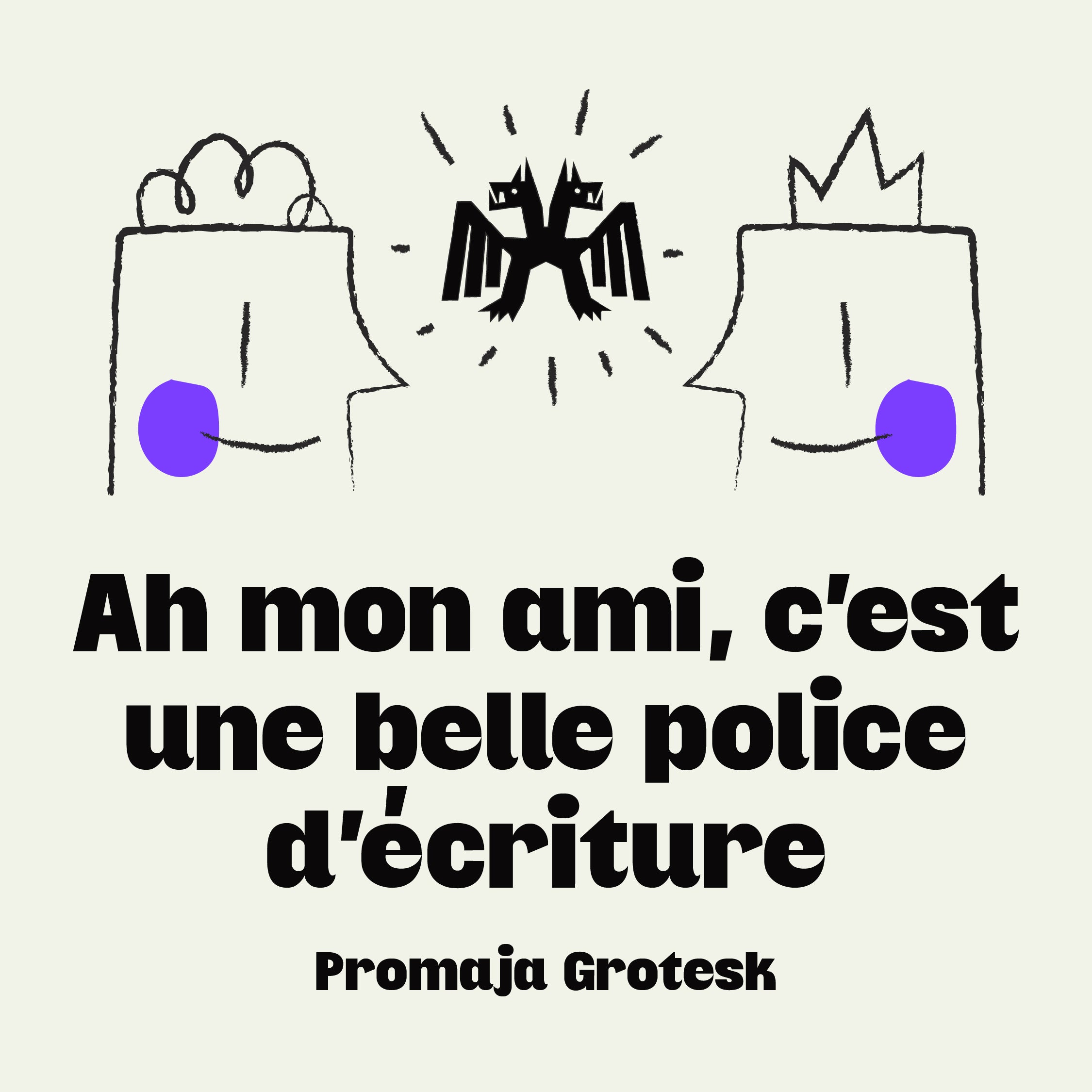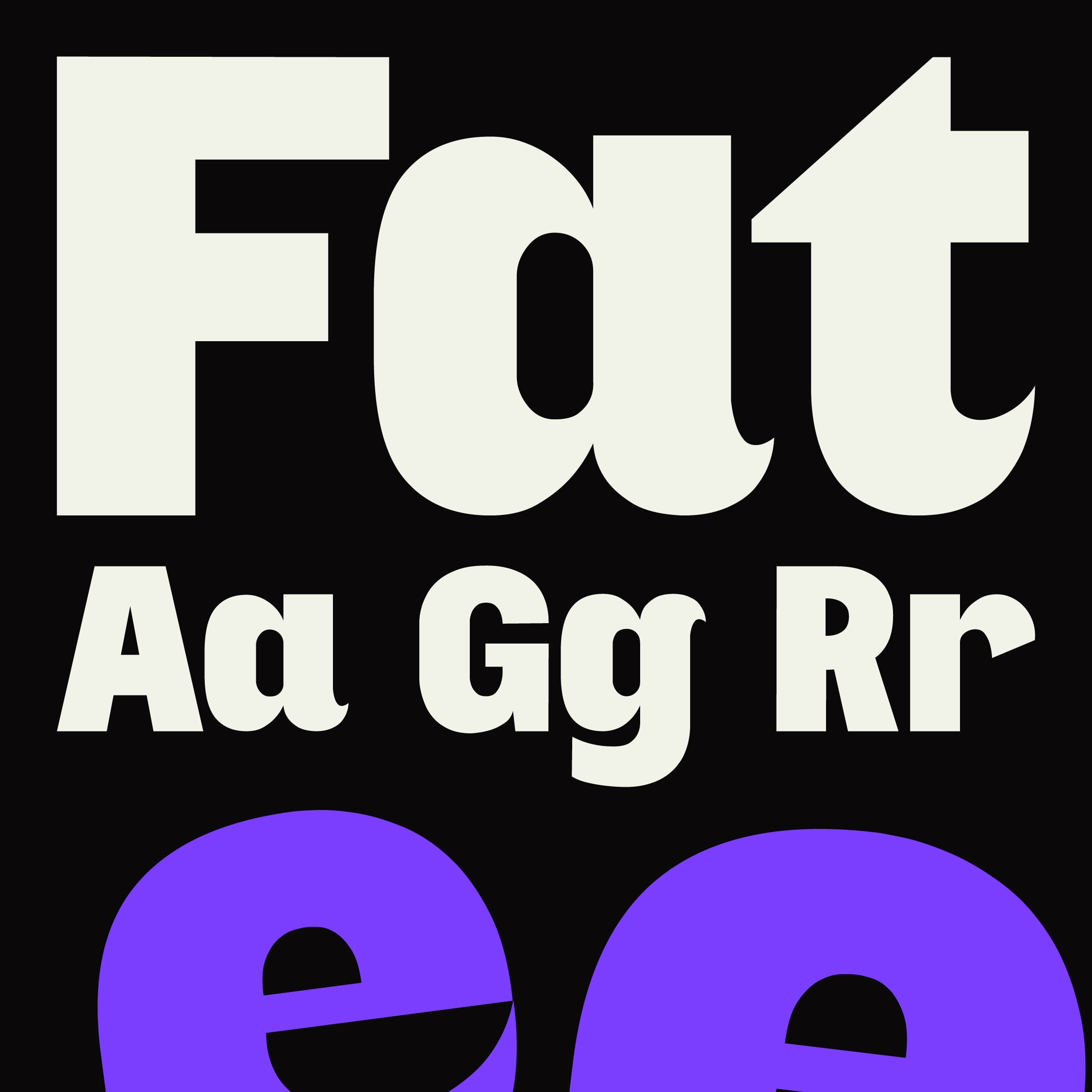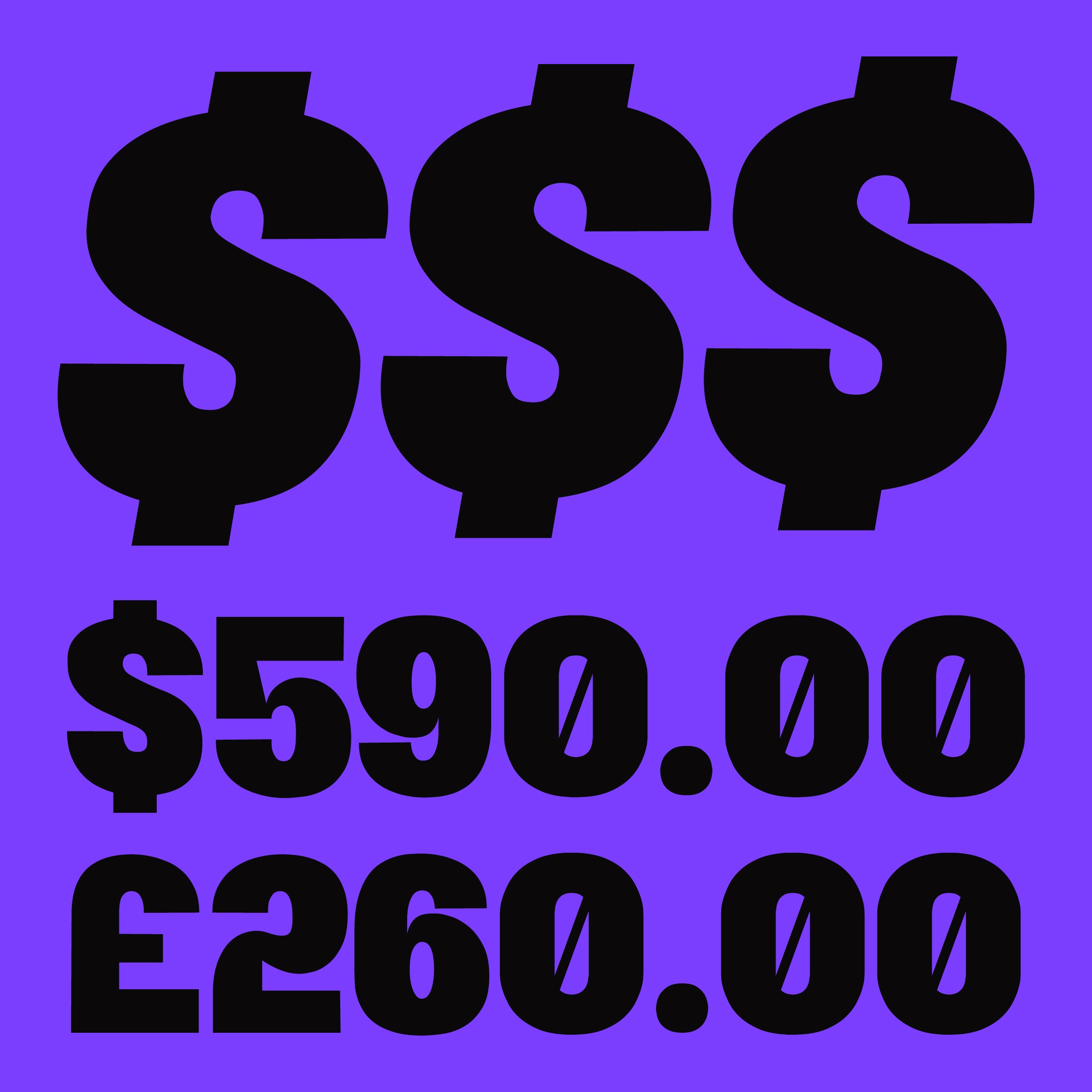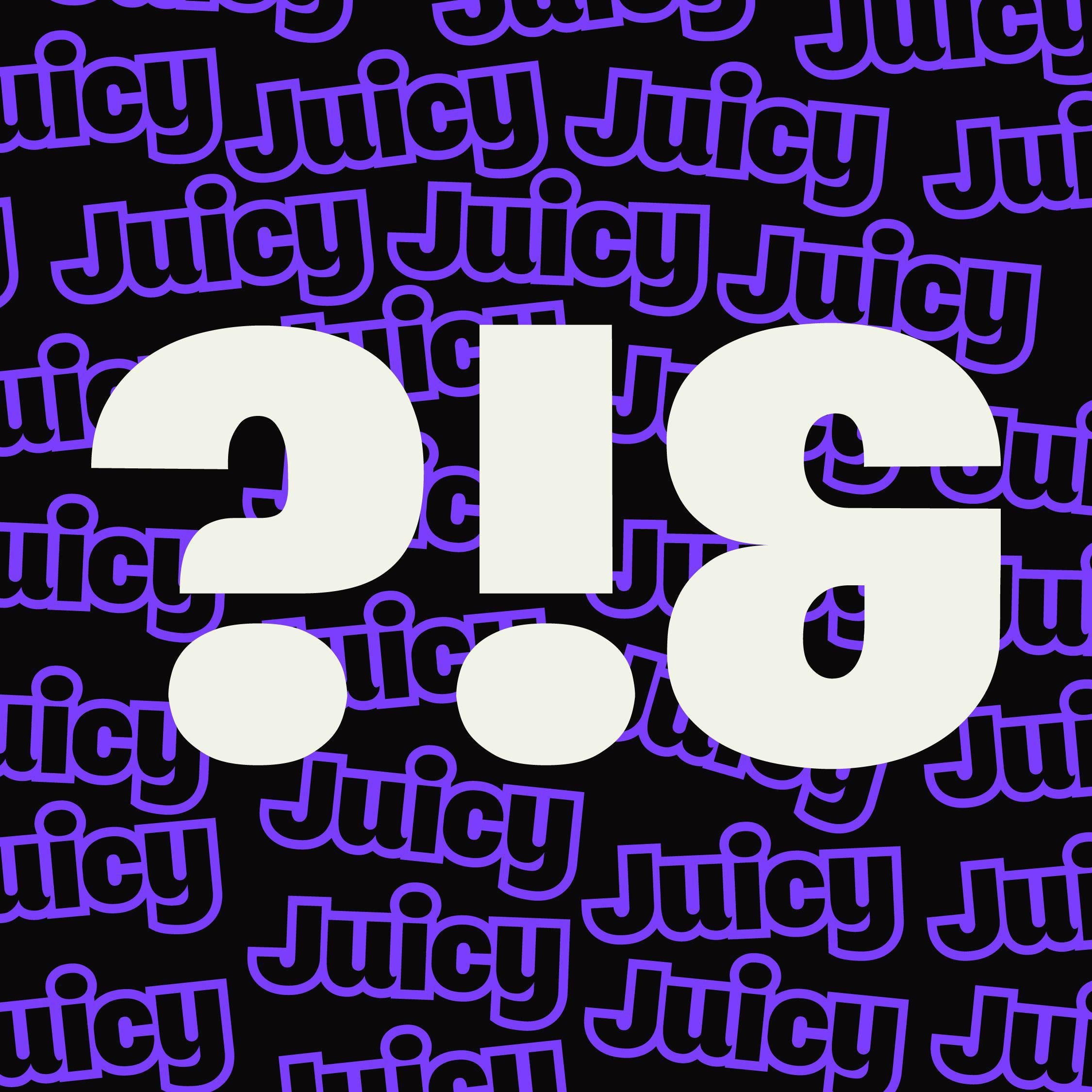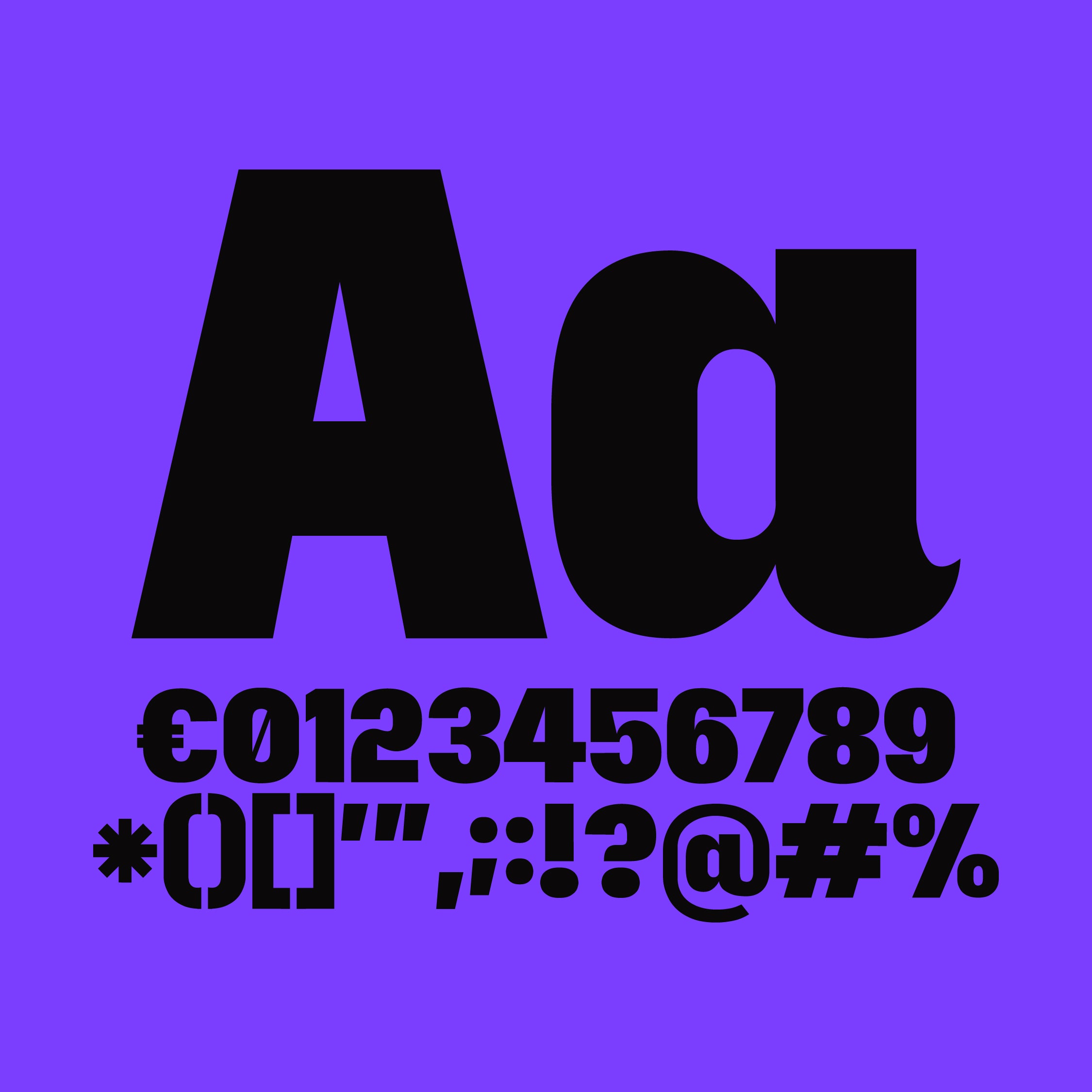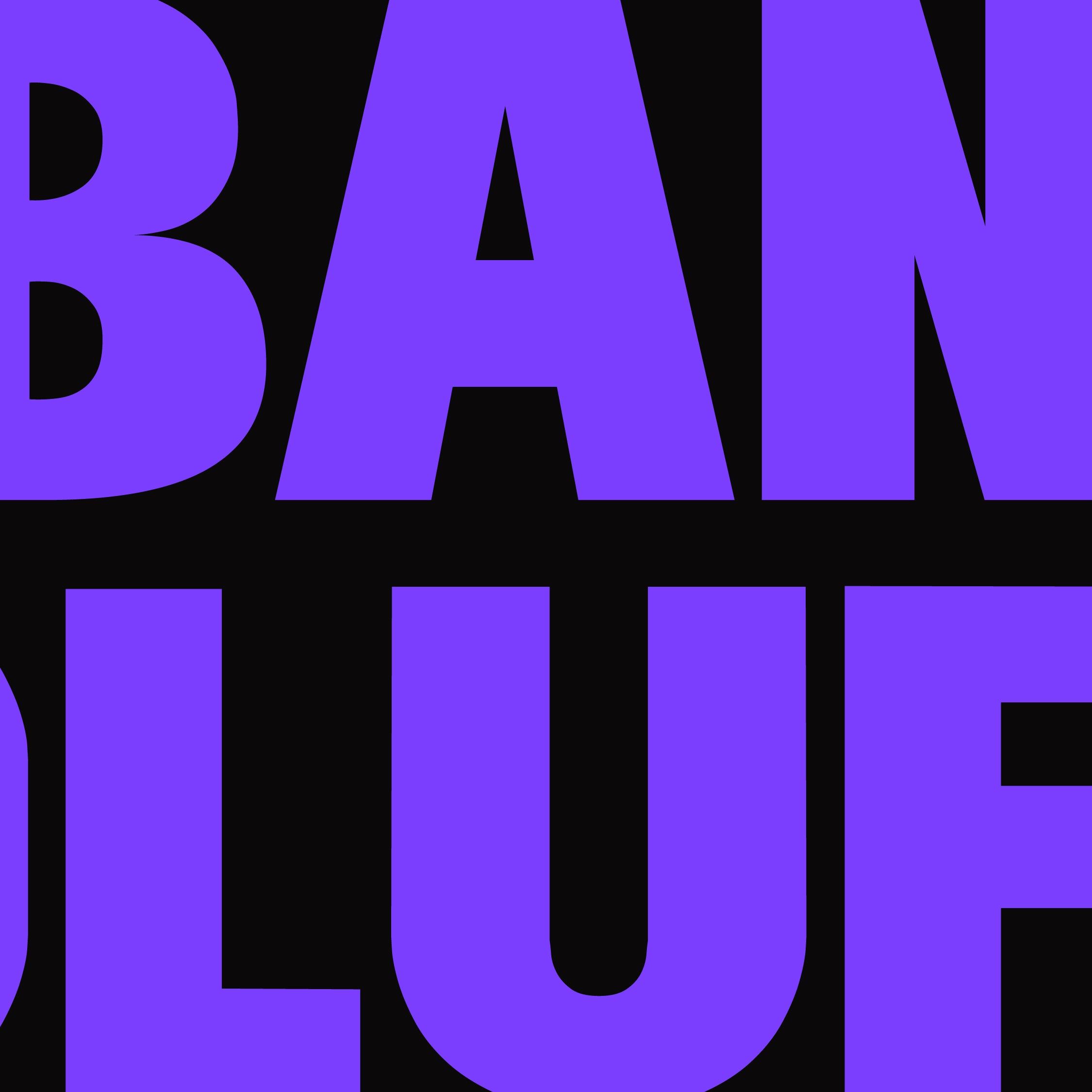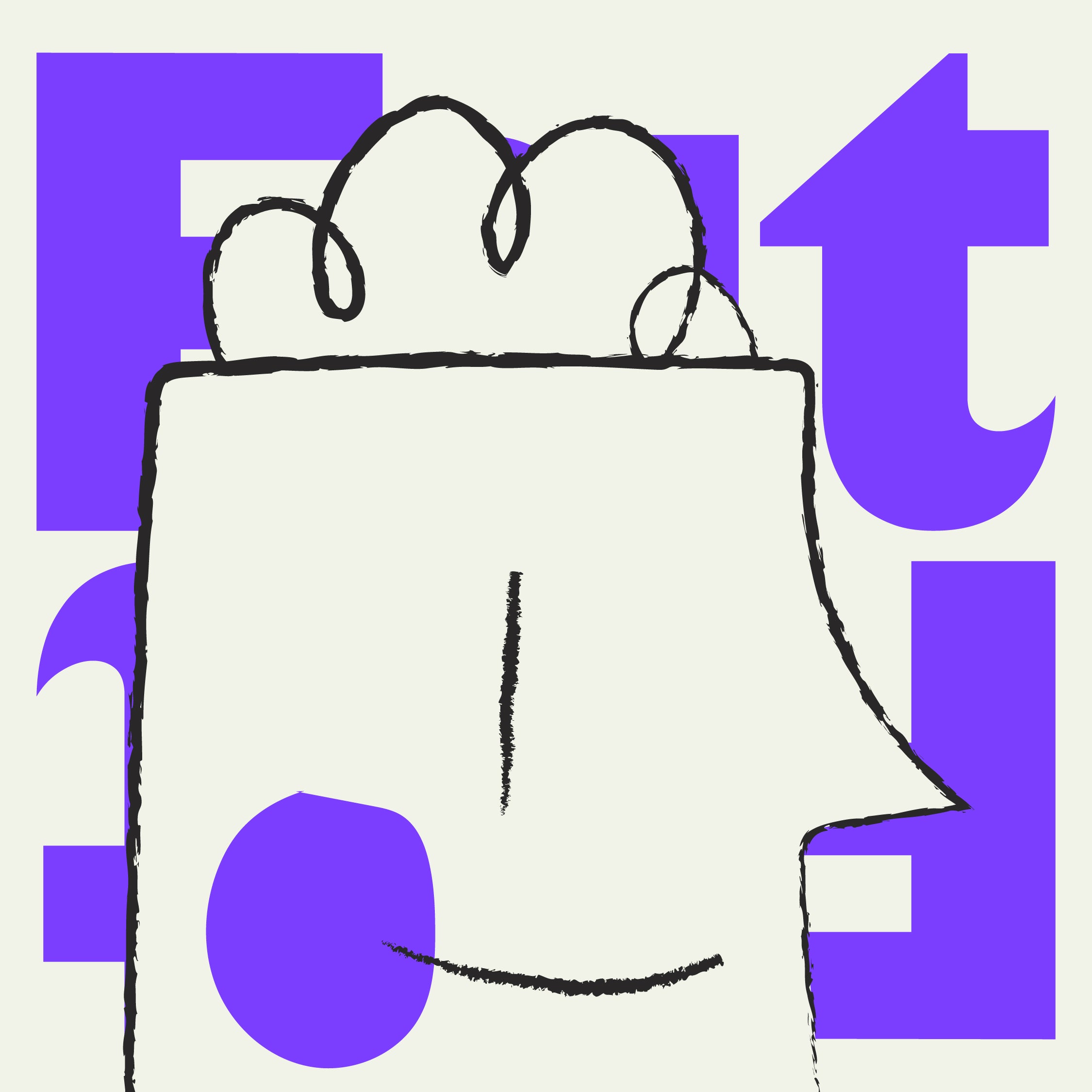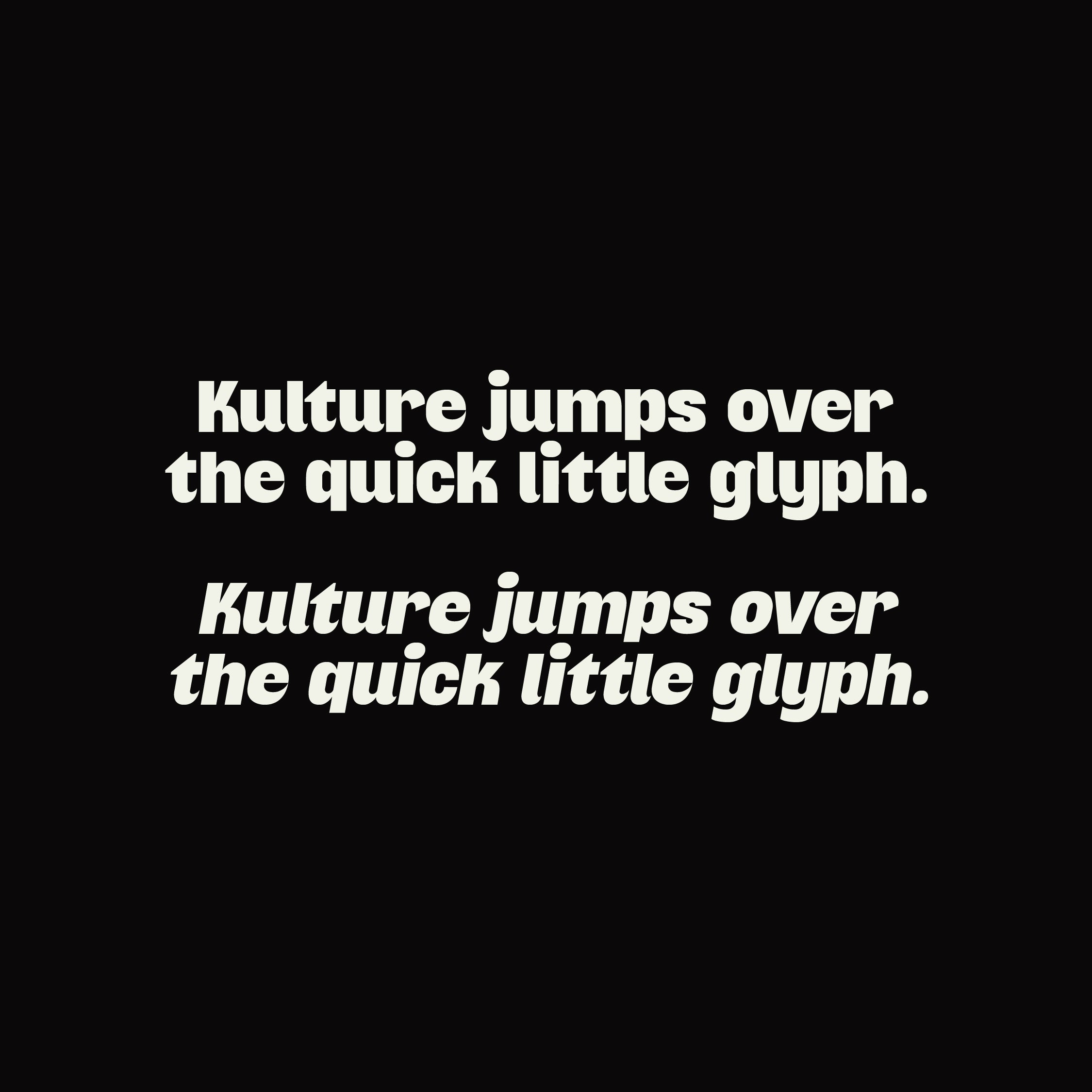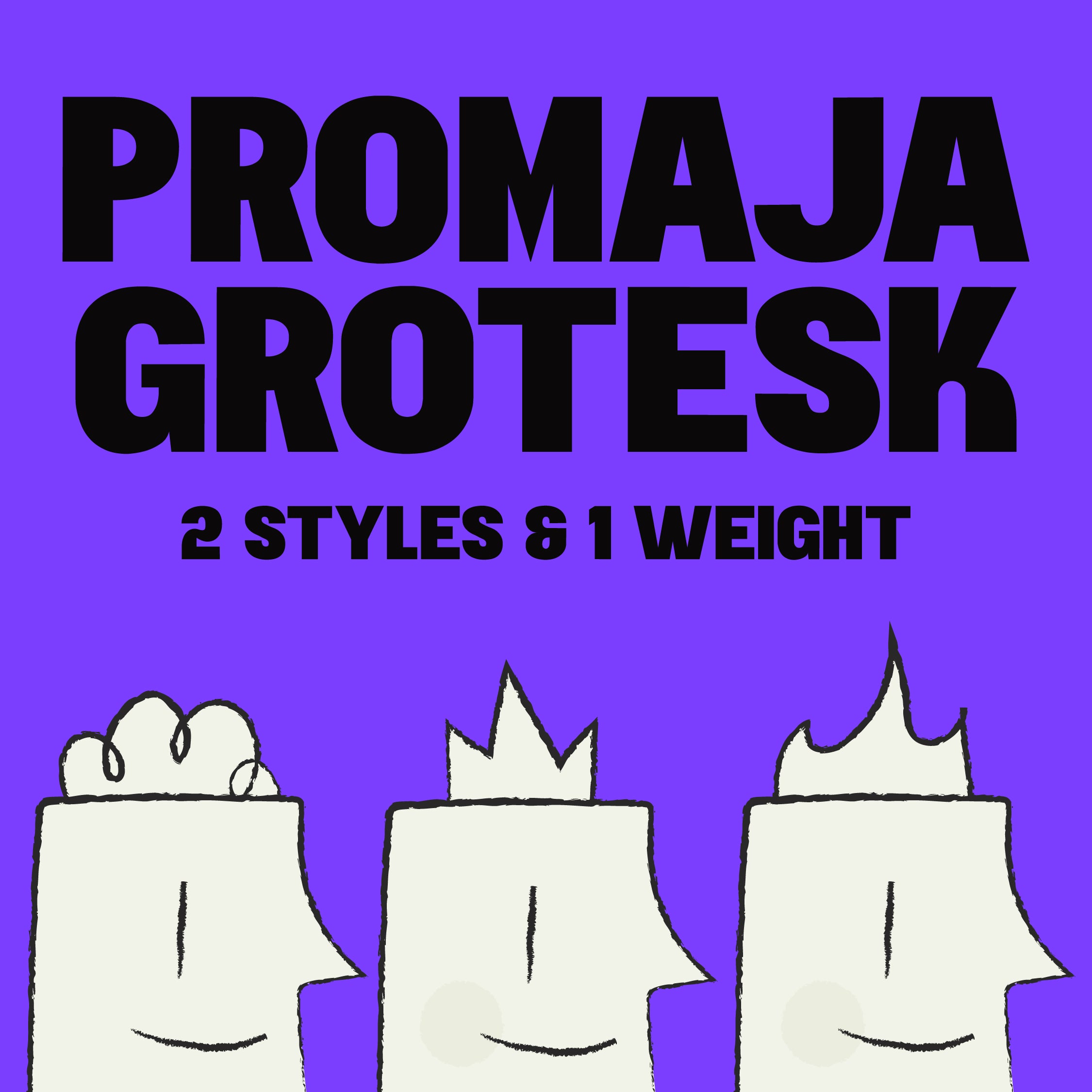
Promaja Grotesk Typeface
Promaja Grotesk is a display typeface that features a blend of irregular forms and various typographic styles, available in Regular and Italic versions. It supports multilingual characters and combines soft and sharp design elements, making it suitable for a range of typographic applications.
Ideal for contemporary display typography and innovative graphic design. Perfect for bold headlines, branding projects, coffee menus, and album covers, ensuring a unique blend of softness and sharpness that captures attention.